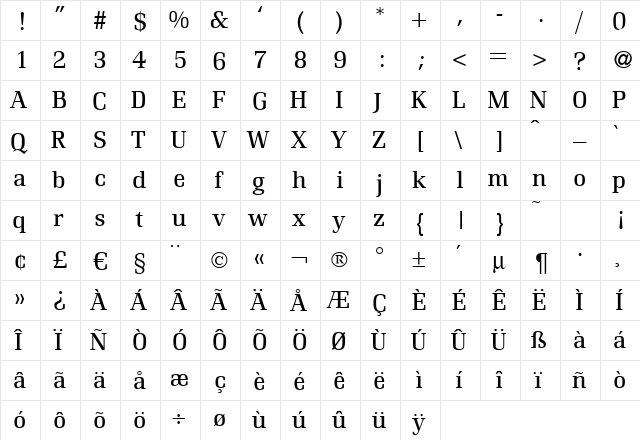
R690-Roman Regular
Design Context for R690-Roman Typeface
R690-Roman is a composed and adaptable typeface that performs quietly and consistently across a wide range of design contexts.